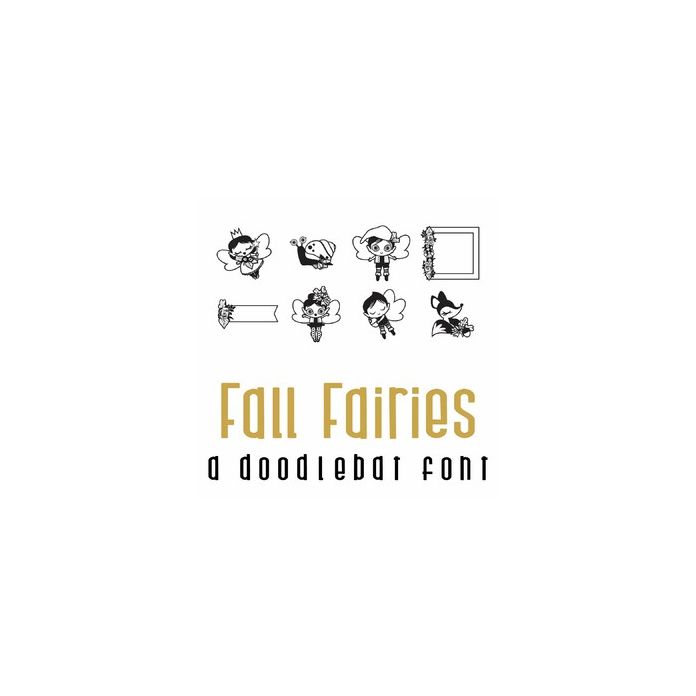
This fun doodlebat font features 26 beautiful fall fairies and forest animals. Perfect for cards, gifts, decor, crafts, scrap book pages, planner stickers and more!